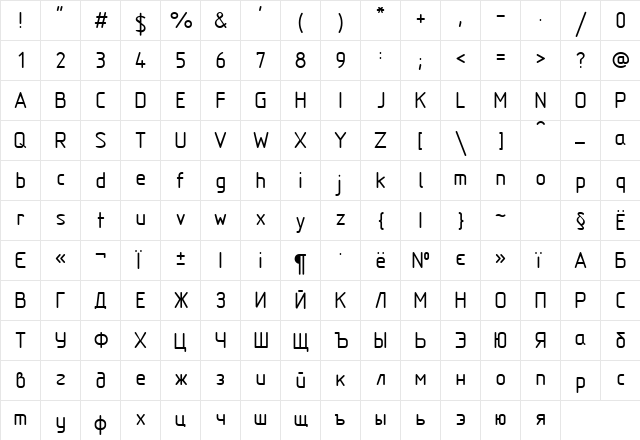
GOST type B Regular
Design Context for GOST type B Typeface
GOST type B is a composed and adaptable typeface that performs quietly and consistently across a wide range of design contexts.